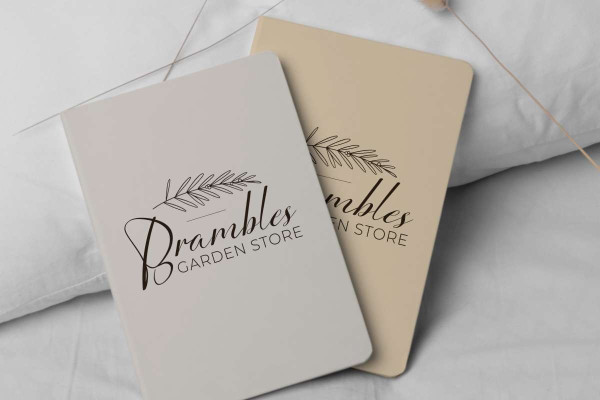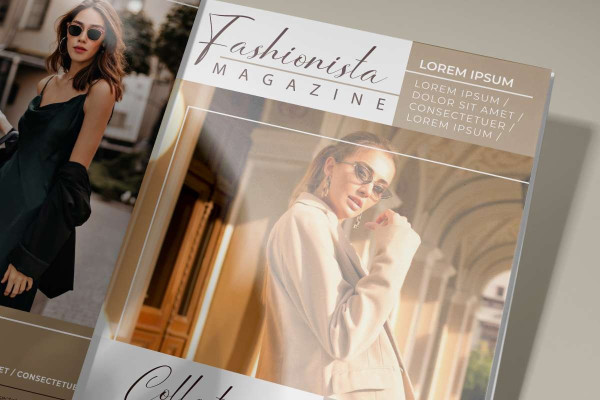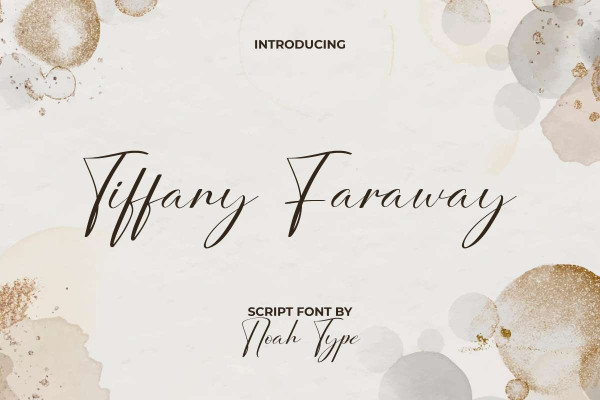
Tiffany Faraway Font
Tiffany Faraway Font is a stylish modern signature script font with professional looks. This beautiful font will grab anyone’s attention when added to your design. It will be suitable for any industries, including pro model, athlete, art, café, events , wedding organizer, cosmetic, farm, fashion, furniture, hotel and resort, printing, publishing, restaurant, skincare, and more!
Tiffany Faraway Font includes full set of Uppercase and Lowercase Basic Characters, Numerals and Punctuation, and Ligature. Get inspired and use this lovely font in your various designs, such as brand logo, brochure, label, mockup design, poster, product packaging, quote, screen printing, stationery, title, website, and more!